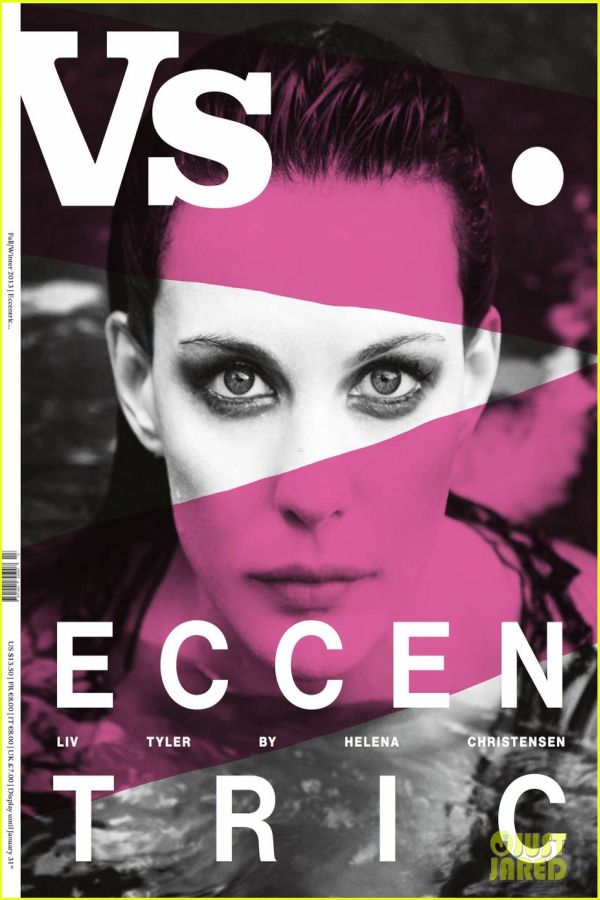
Vs. Font
BookVs. is a biannual fashion and lifestyle magazine that covers fashion, beauty, culture, and art. The magazine was founded in 2003 by the art director Jakob F. Stubkjaer and the former model Vibe Dabelsteen.
The nameplate of the magazine is most likely set in Clarendon Black, a typeface with slab serifs created by Hermann Eidenbenz in 1953. If you want to learn more about this font, you can check out the details here.